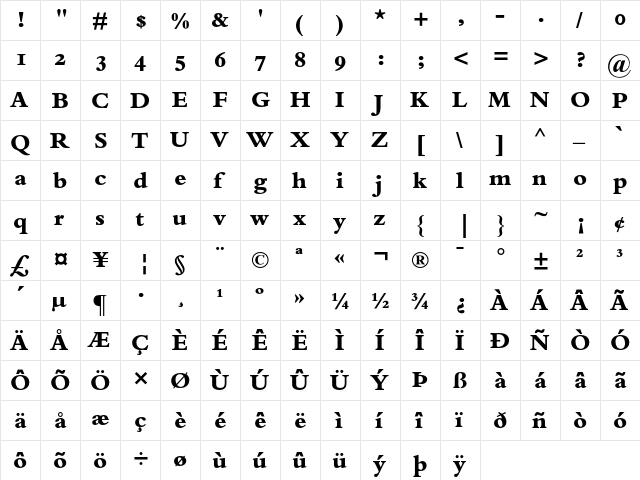
Bembo Extra Bold Oldstyle Figures
Design Context for Bembo Typeface
Bembo brings classic typographic sensibility to the table — its serifs and measured letterforms reflect centuries of print heritage. The heavy weight commands attention and anchors typographic hierarchies.
Pro Tip: Use Bembo for editorial body copy and considered headline work. Pair with a neutral sans for UI elements or captions to create a classic hierarchy.